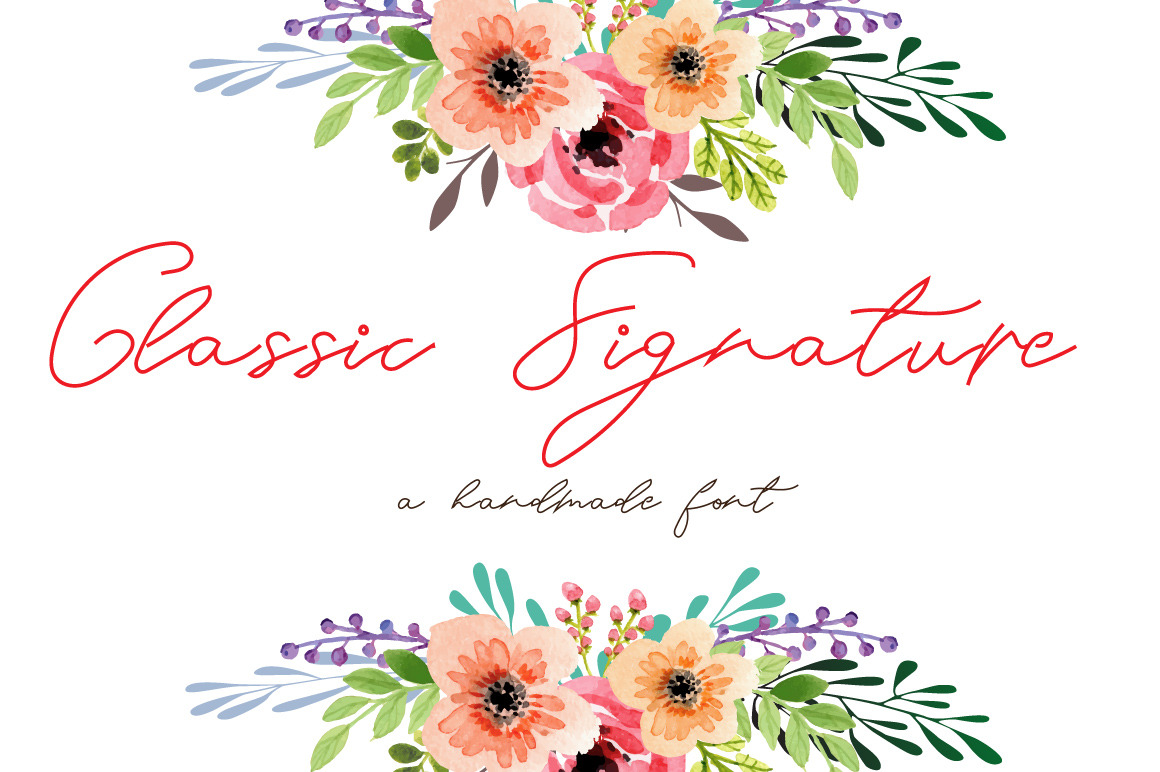
Classic Signature Font
Classic Signature is modern script font, every single letters have been carefully crafted to make your text looks beautiful. With modern script style this font will perfect for many different project ex: quotes, blog header, poster, wedding, branding, logo, fashion, apparel, letter, invitation, stationery, etc.